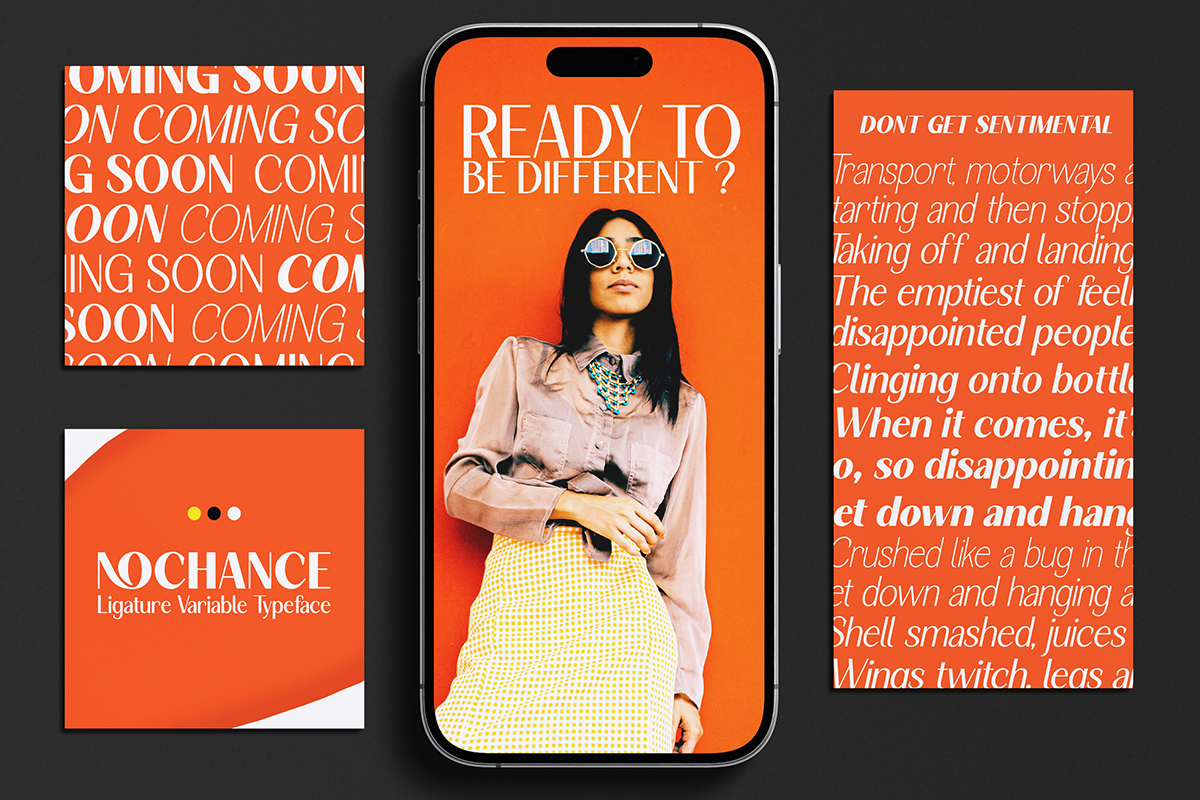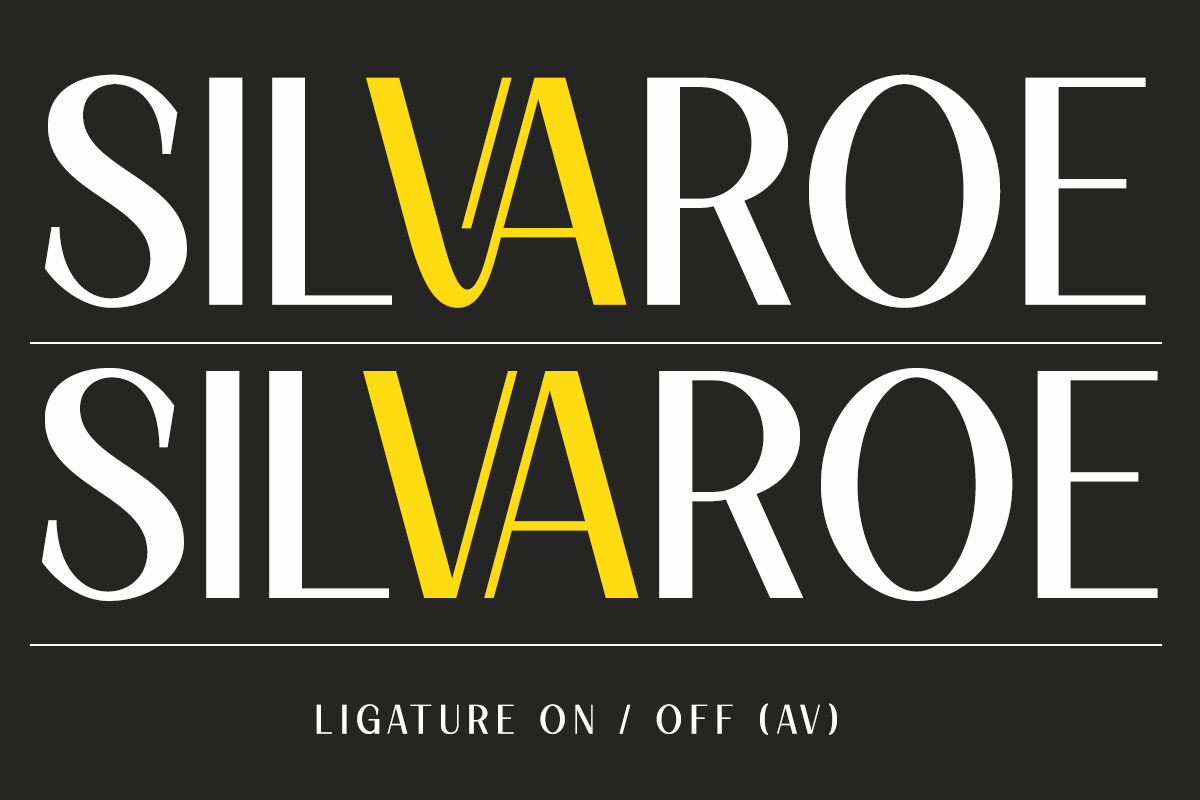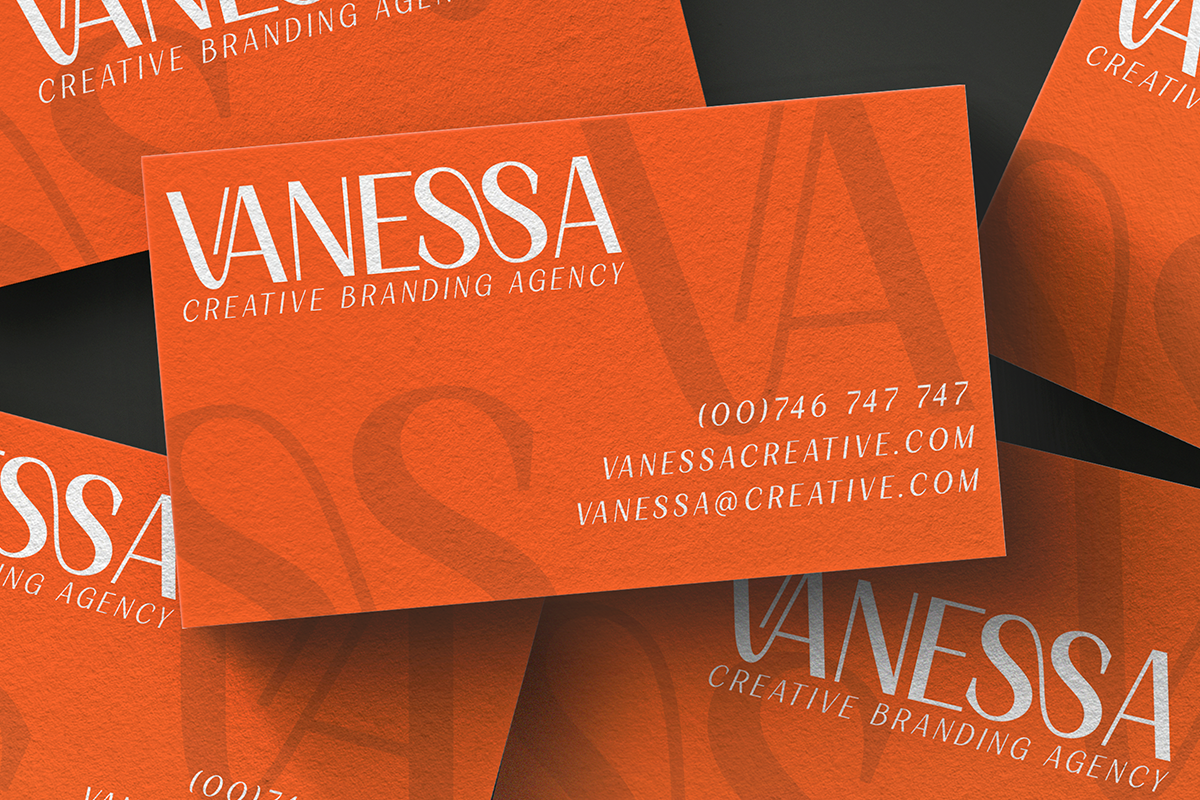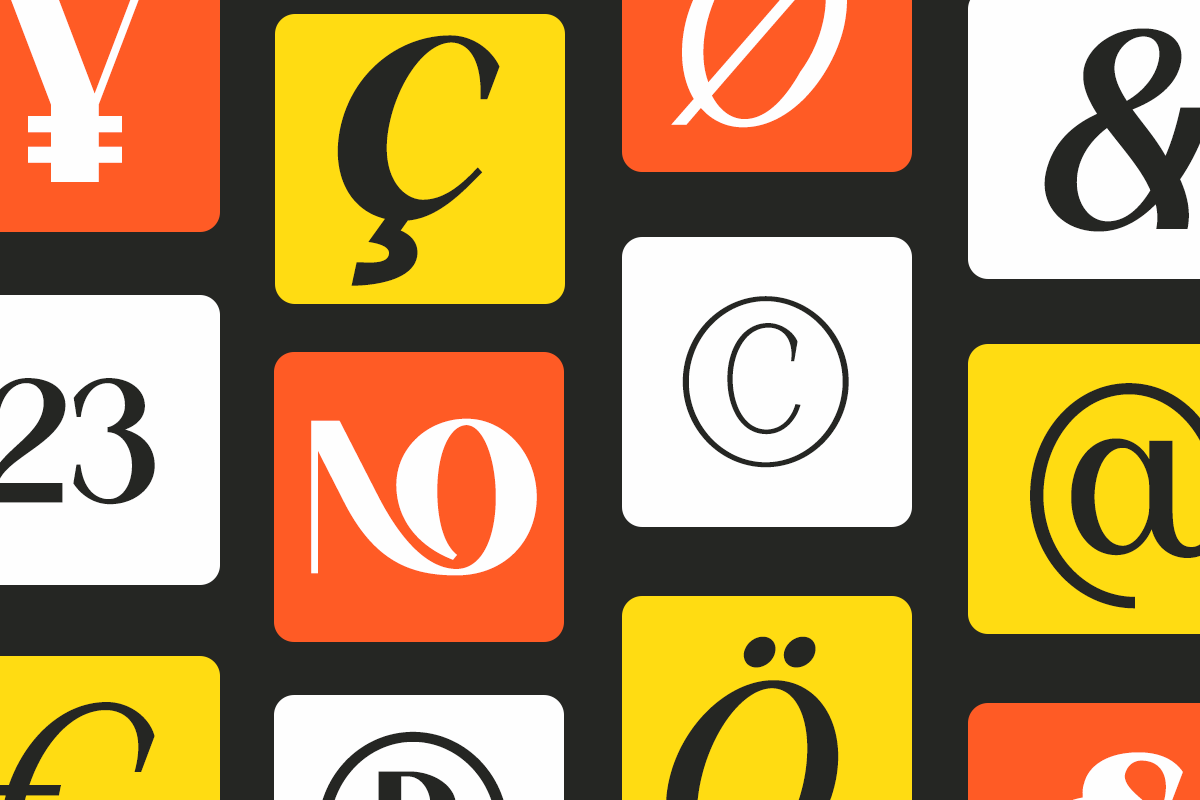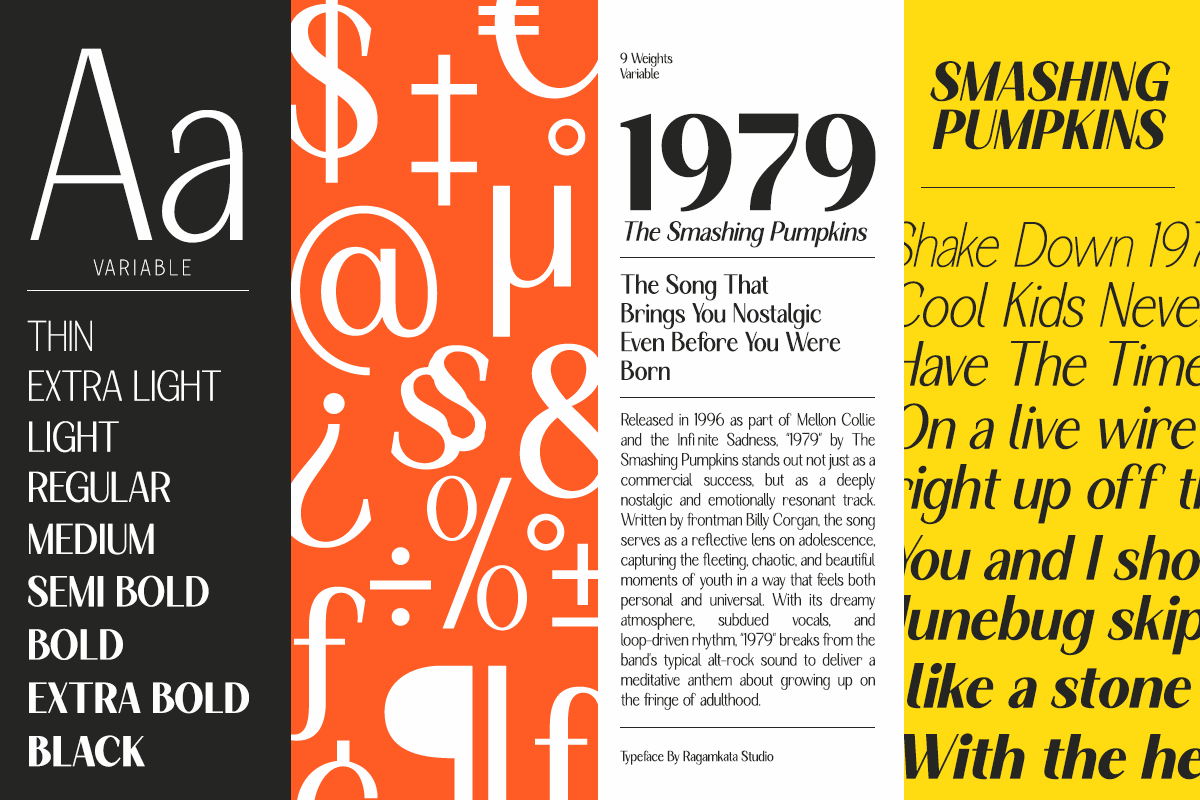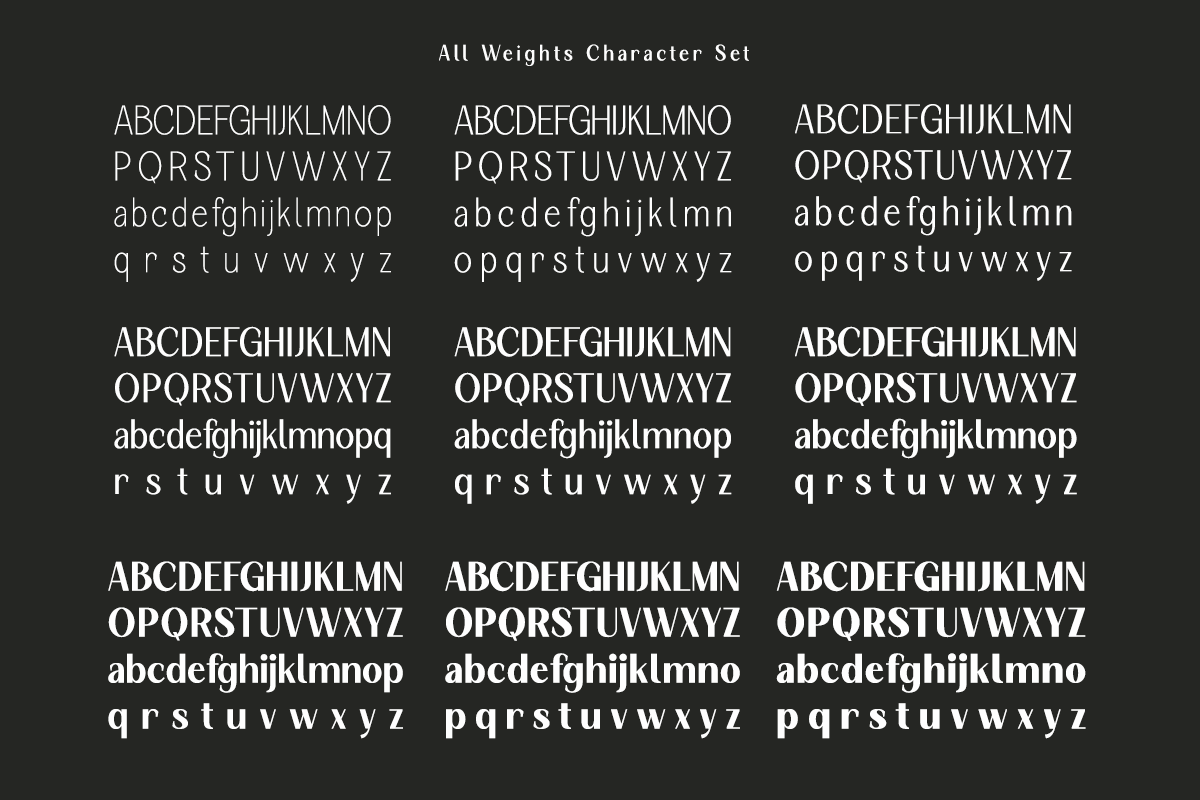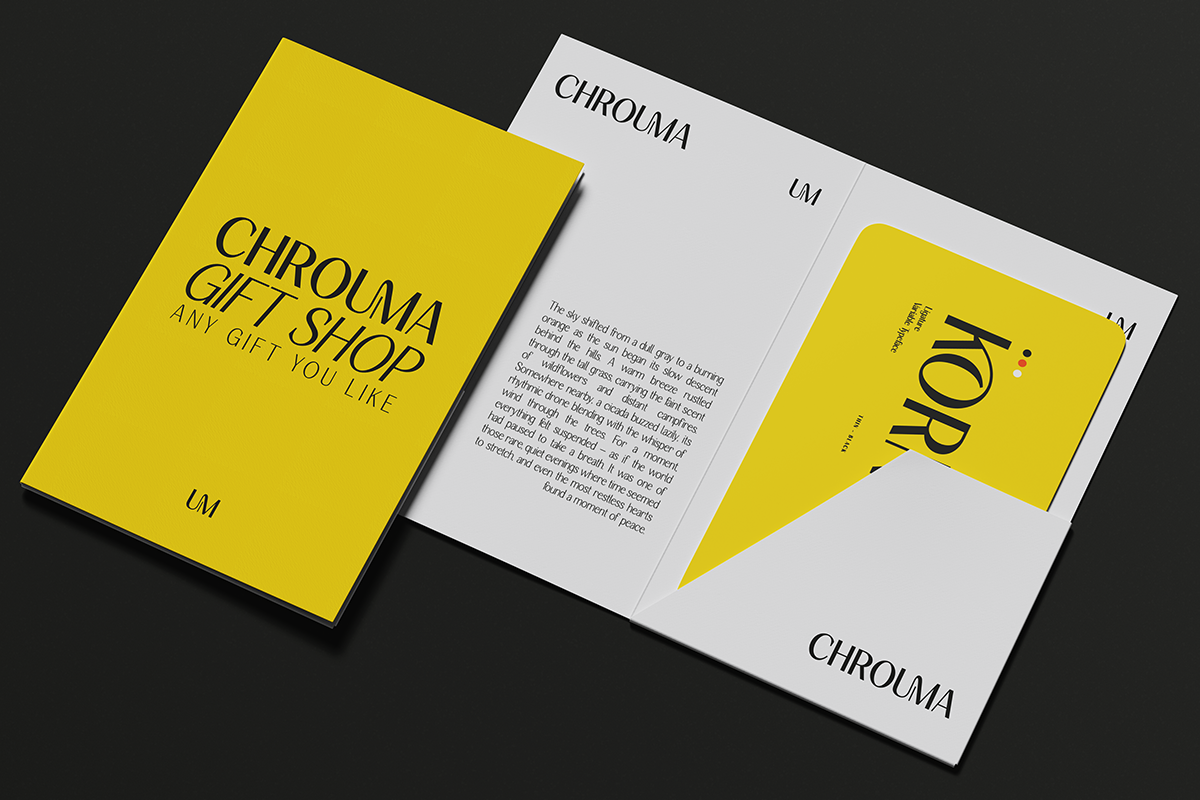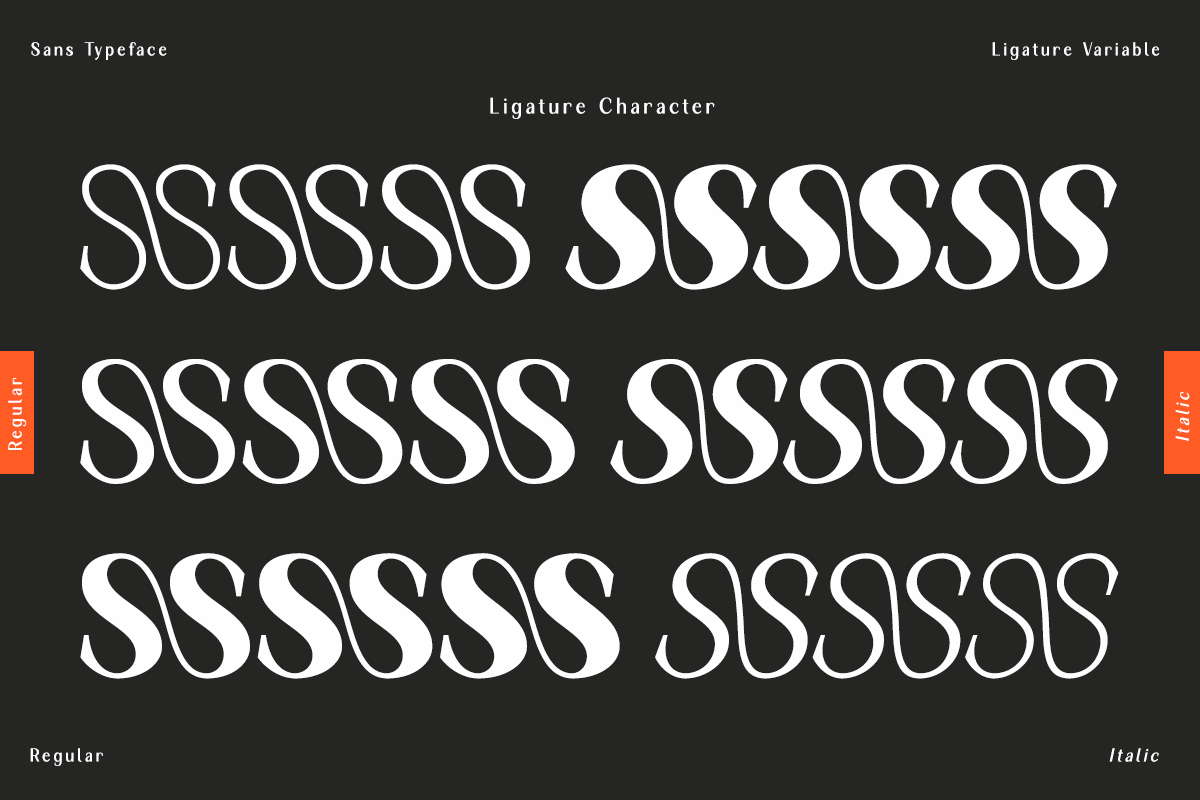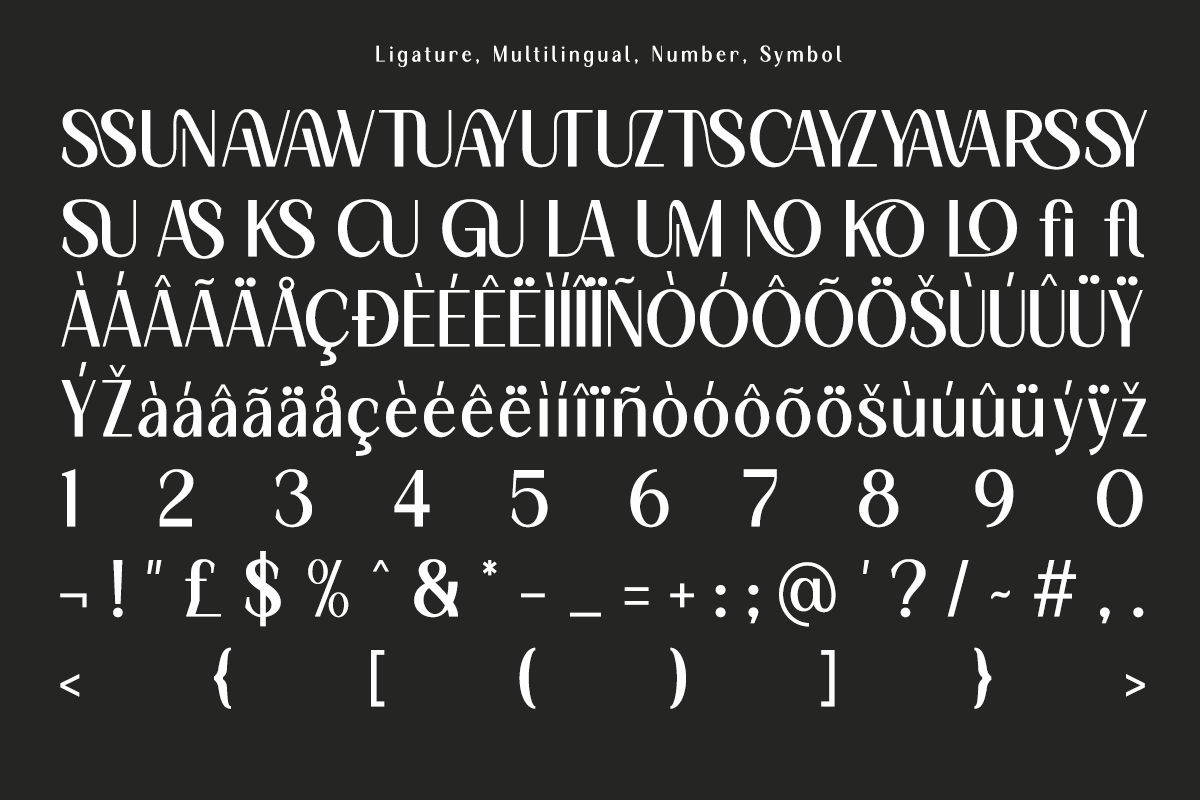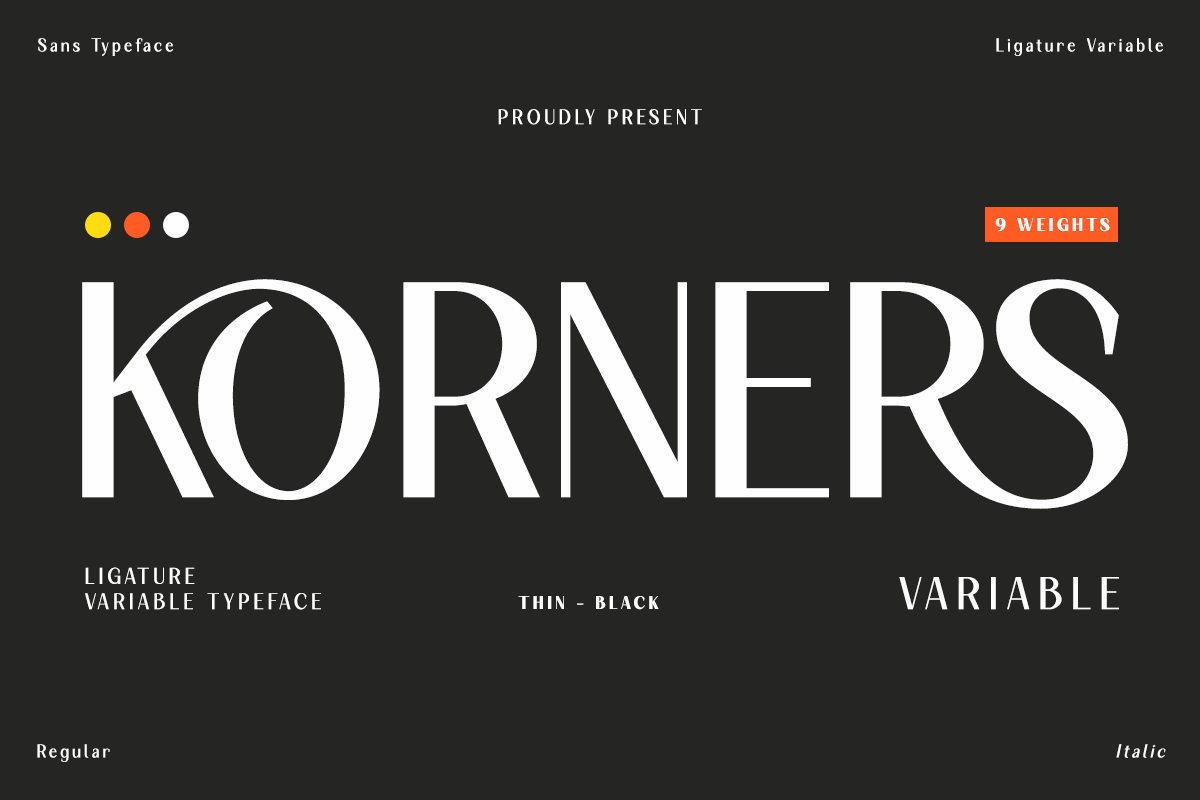
Korners - Variable Sans Font
Korners is variable ligatures sans font with based on our experience as a graphic designer who works for a lot of companies, we often are requested to design a logo in a unique style but with an elegant shape. So, we try to brainstorming and create this font to make the idea is going out. This is perfect for versatile project like magazine images, to wedding invitations, to branding, poster design, and more. Korners is also included full set of: - Korners Regular ( OTF,TTF,WOFF ) - Korners Italic ( OTF,TTF,WOFF ) - 9 Variable Weights - Ligatures Character - Multilingual Support Thanks, Have a wonderful day